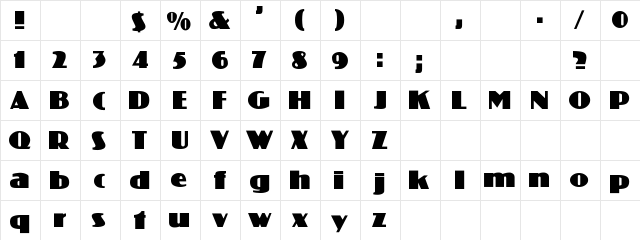
Lardner Regular
Design Context for Lardner Typeface
Lardner is a composed and adaptable typeface that performs quietly and consistently across a wide range of design contexts.